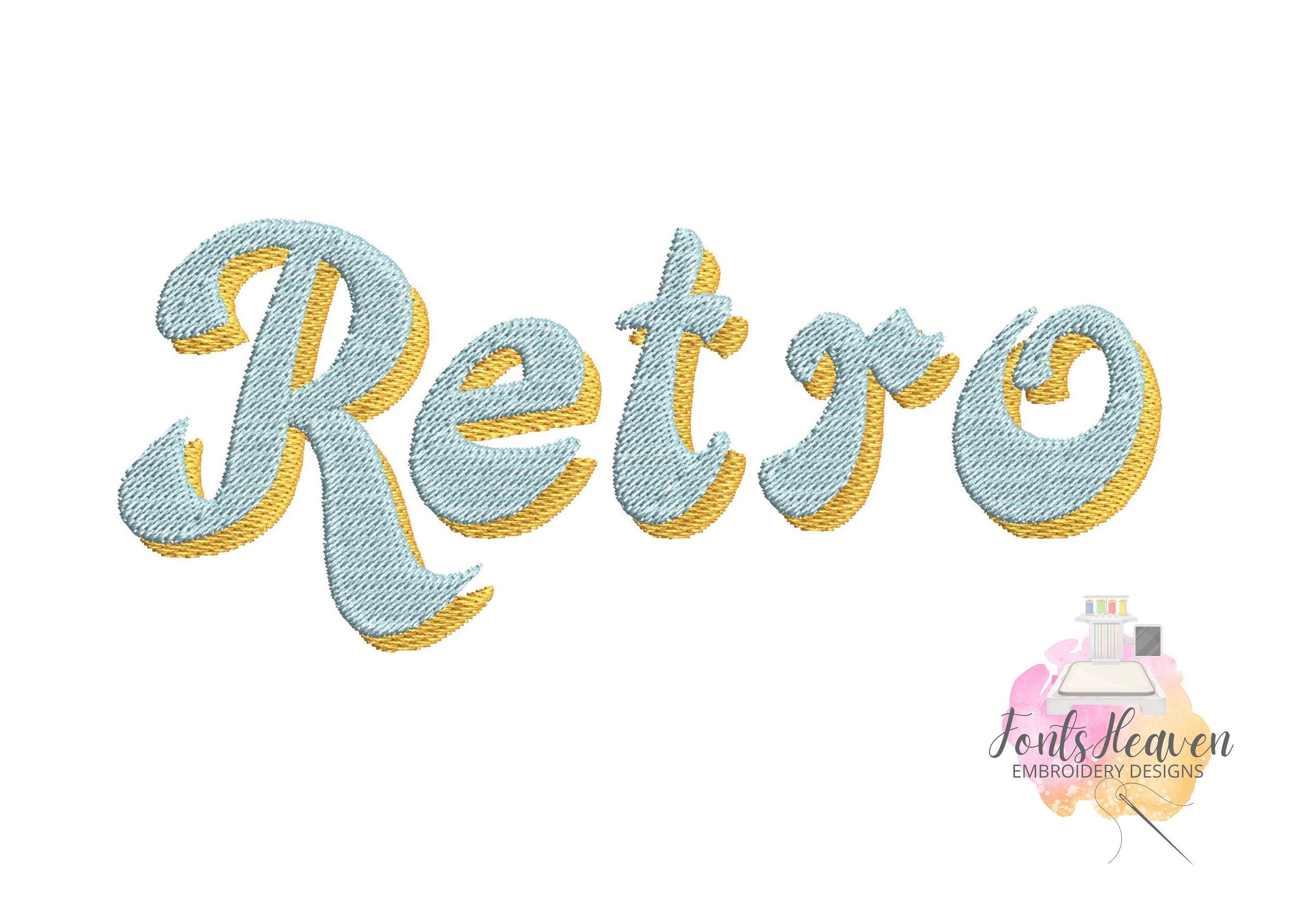
Fabulous retro vintage Shadow Font alphabet machine embroidery designs in sizes 1.5 thru 3.5 inches fill stitch shaded font monogram, BX included
Tolle gestickte Buchstaben, ein besonderes Highlight mit dem Schatten.